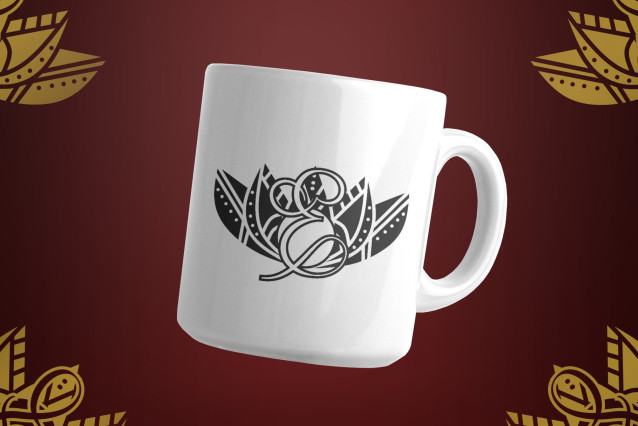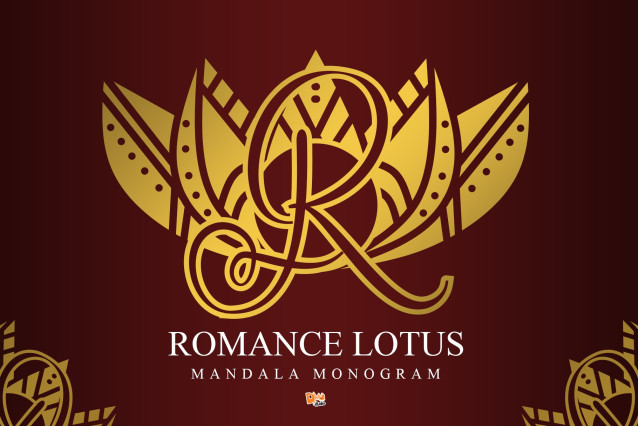
Romance Lotus Mandala Monogram Font
Romance Lotus Mandala Monogram is a delicately crafted monogram font that blends romantic elegance with the spiritual beauty of lotus mandalas. Each character is adorned with intricate, hand-drawn lotus patterns, making it a stunning choice for personalized wedding decor, luxurious branding, or heartfelt stationery. This font captures love and grace in a timeless ornamental style.